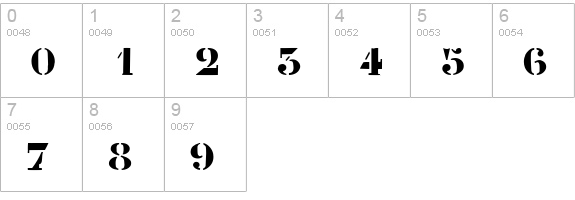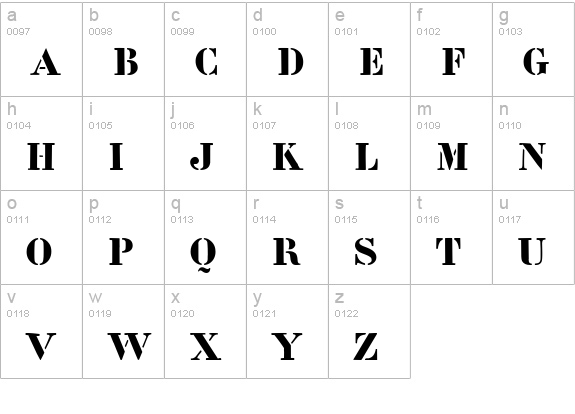
The P22 Pop Art Stencil font is a vibrant and energetic typeface that captures the essence of the Pop Art movement. With its bold and striking letterforms, this font is perfect for adding a touch of contemporary flair to your designs. This font is inspired by the iconic stenciled lettering often seen in Pop Art masterpieces. It embodies the rebellious and expressive nature of the movement, making it an ideal choice for projects that require a modern and edgy aesthetic. The P22 Pop Art Stencil font is incredibly versatile, lending itself well to various design applications. Whether you're working on posters, advertisements, album covers, or even digital graphics, this font will undoubtedly make a bold statement. One of the best things about the P22 Pop Art Stencil font is that it is free! You can easily download it from FontsMarket.com, a reliable source for high-quality fonts. With its generous availability, you can incorporate this font into your projects without any restrictions or limitations. With its eye-catching style and easy accessibility, the P22 Pop Art Stencil font is a must-have for designers and creatives looking to add a touch of Pop Art inspiration to their work. So why wait? Download this font today and let your designs come to life with a burst of creativity and energy.